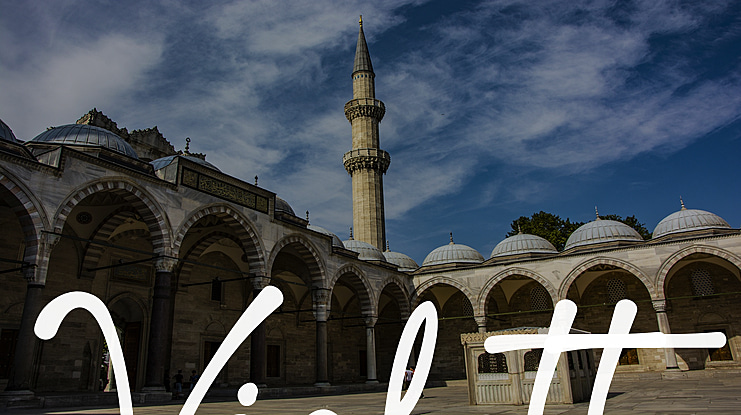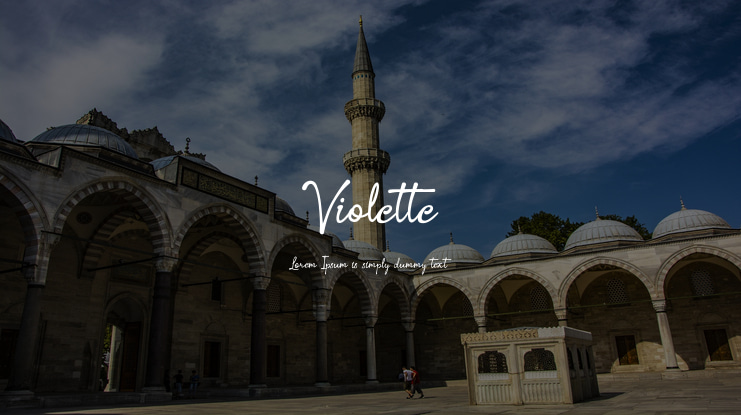
Violette Font
Introducing new my font Violette is luxury hand lettering font. With realistic pencil script make this font more beautiful, retro, elegant and natural.
This collection of scripts is perfect for make a logo, brand, magazine, poster, stationery design, business card, and others.